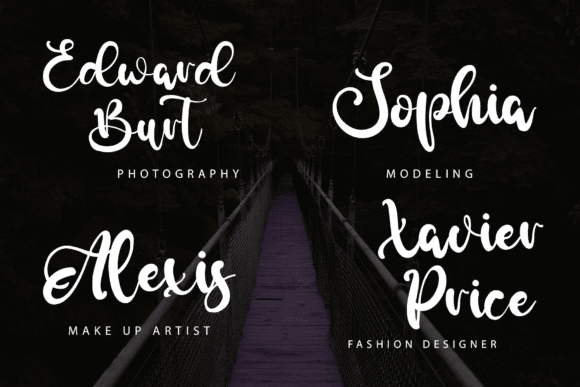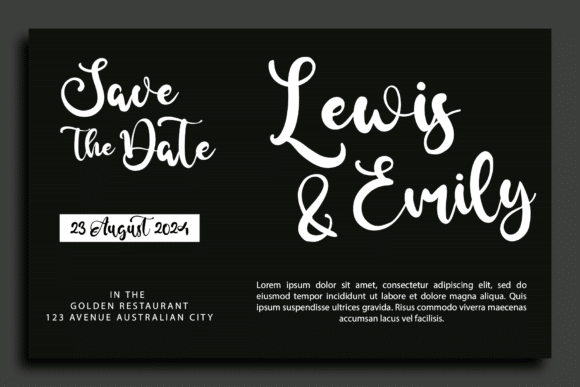
Burcaster Font
Burcaster is a modern and playful handwritten script font. It’s great for crafters and designers. Use this font for your designs and explore its endless possibilities.